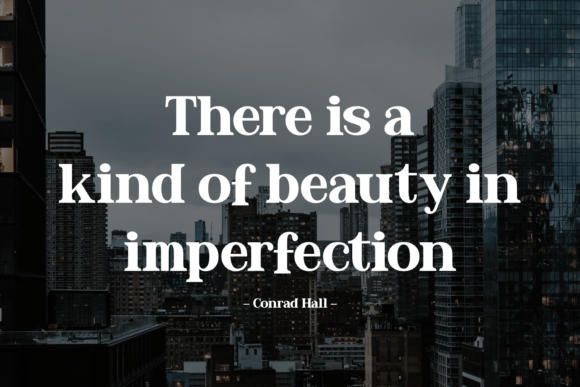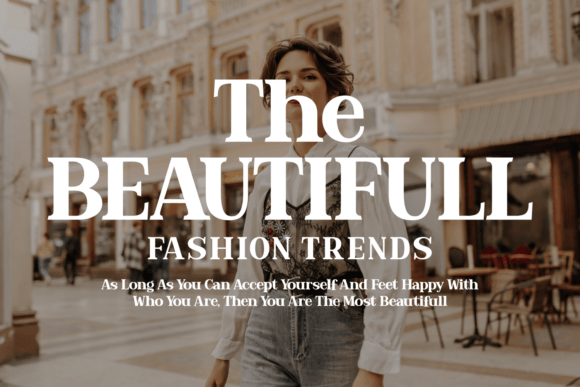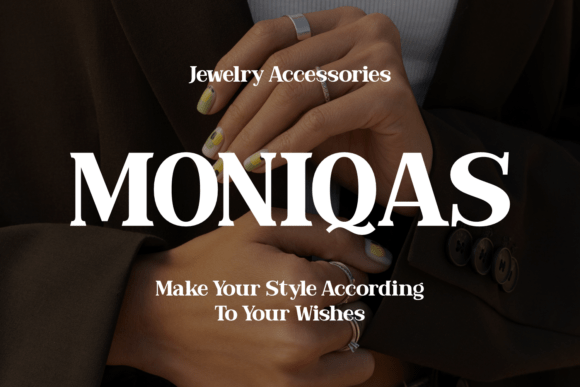
Introduction to Frexin Vibes Font
Have you ever stumbled upon a font that makes your design dreams come true? That’s exactly what happened to me when I discovered the Frexin Vibes Font. I was working on a project, and I needed a font that would add a touch of elegance and sophistication to my design. As I scrolled through my design resources, I came across Frexin Vibes Font, and I knew I had found the perfect match.
| 👤 Author | Feri (7NTypes) |
What I love about Frexin Vibes Font is its incredible versatility. Whether you’re creating a beautiful wedding invitation, designing stunning stationery art, or crafting eye-catching social media posts, this font is sure to impress. Its clean and modern design makes it perfect for any creative project, and the fact that it’s available for a free download is just the cherry on top.
Key Features of Frexin Vibes Font
- Unique, hand-drawn design that adds a touch of creativity to any project, making it an excellent design resource.
- Features a transparent background, allowing for effortless layering and customization to suit your design needs.
- High-quality font with precise details and a clear, readable texture, suitable for use in a variety of contexts, from digital to print media.
- Includes multiple weights and styles, providing flexibility for designers to experiment with different typography combinations.
Honest Review: Frexin Vibes Font
As a designer, I’m always on the lookout for high-quality design resources to elevate my creative projects. The Frexin Vibes Font caught my attention with its unique and playful aesthetic. I decided to put it to the test and share my honest review.
- Unique and creative design: The Frexin Vibes Font offers a fresh take on traditional font styles.
- High-quality glyphs: The font’s glyphs are well-designed and legible, making it suitable for a wide range of creative projects.
- Limited character set: The font’s character set is not extensive, which may limit its use for complex projects.
- No transparent background: The font’s background is solid, which may not be ideal for designs that require a transparent background.
Overall, the Frexin Vibes Font is a great addition to any designer’s toolkit. While it has some limitations, its unique design and high-quality glyphs make it a valuable resource for creative projects. With a bit of creativity, designers can work around its limitations and achieve stunning results.
Tips for Getting the Most Out of Frexin Vibes Font
Experiment with different font sizes, colors, and styles to create unique designs. Use the transparent background feature to create visually appealing graphics. Combine Frexin Vibes Font with other design elements to create a cohesive and creative project.
Common Use Cases for Frexin Vibes Font
Frexin Vibes Font is ideal for creative projects such as logos, brochures, business cards, and social media graphics. Its high-quality design resource and transparent background feature make it a popular choice among designers and non-designers alike.
Yes, the Frexin Vibes Font is available in a transparent background version, allowing for maximum flexibility when designing with a background image or color. This feature is especially useful for designers who want to create visually appealing and cohesive designs.